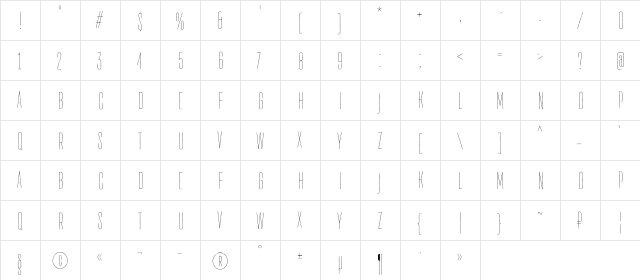
TT Directors DEMO Thin Rough Regular
Design Context for TT Directors DEMO Thin Rough Typeface
TT Directors DEMO Thin Rough trades polish for personality, using distressed and eroded forms to bring grit and attitude to creative work.
Suited to punk-influenced zines, underground music branding, streetwear, and raw, anti-corporate design.
Pro Tip: Pair TT Directors DEMO Thin Rough with intentionally raw or lo-fi design elements. Fighting against it with overly polished surroundings will undermine its personality.